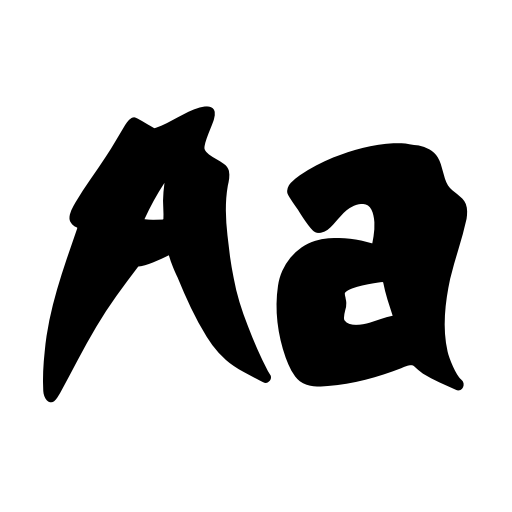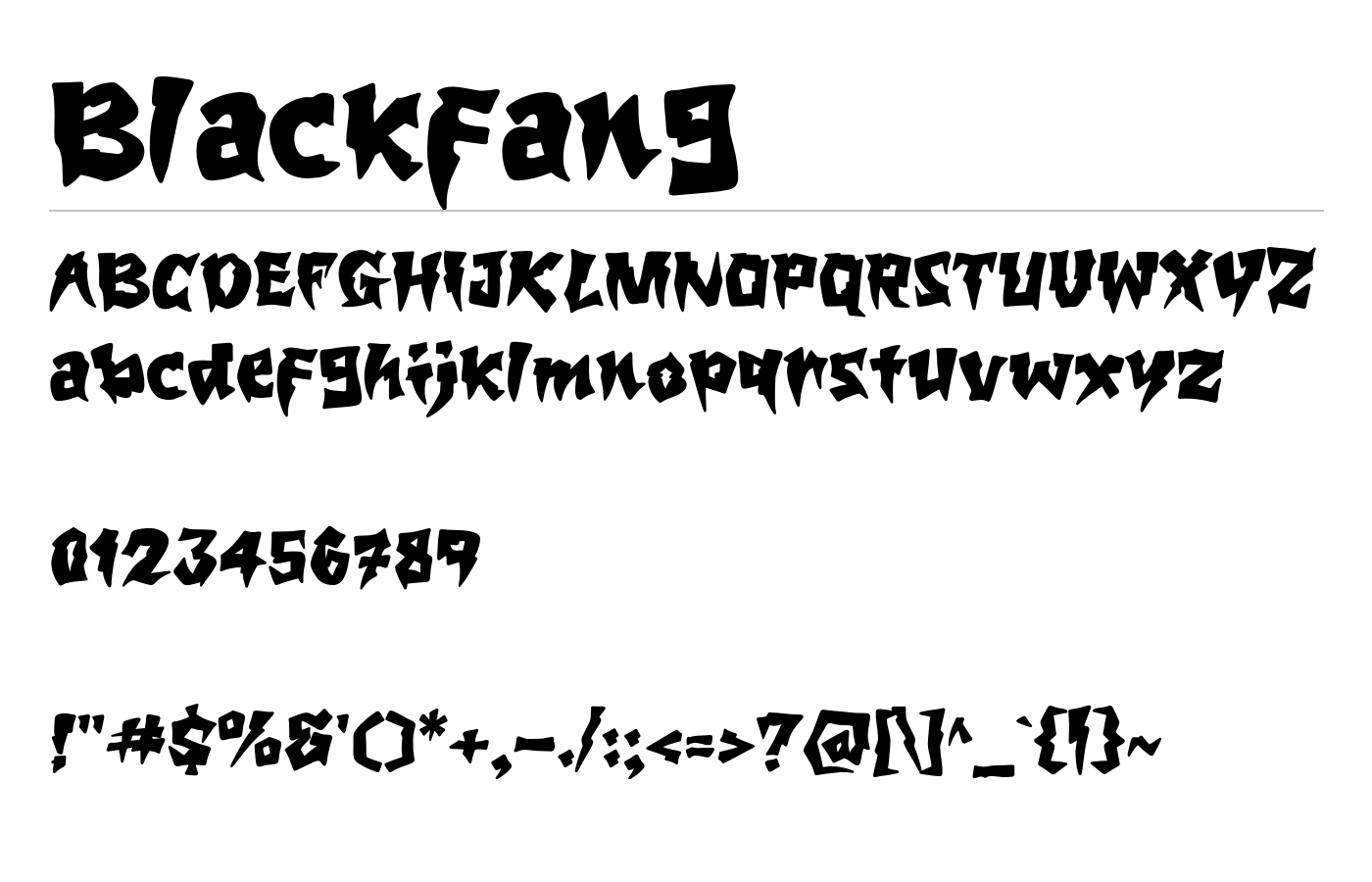
Blackfang is a bold, aggressive display font with sharp, jagged edges that give it a fierce and edgy personality. Its heavy weight, slightly condensed letterforms, and irregular strokes make it ideal for eye-catching headlines or branding that needs a strong, rebellious vibe. Perfect for posters, logos, or creative projects in music, gaming, or urban culture, Blackfang commands attention with its dynamic, street-style energy.
Blackfang Font
About Blackfang Font
| Font family | Blackfang Font |
| Designer | Khurasan & Jalembe |